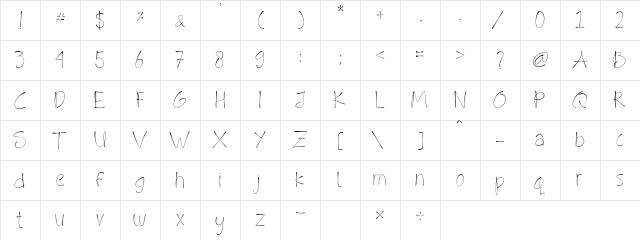
Fly High Demo Regular Font Preview
Fly High Demo Regular
Fly High Demo Regular Font Details
| Foundry | Orchidart Studio |
| Designer | Chiekung Diyah |
Design Context for Fly High Demo Typeface
Fly High Demo is a composed and adaptable typeface that performs quietly and consistently across a wide range of design contexts.